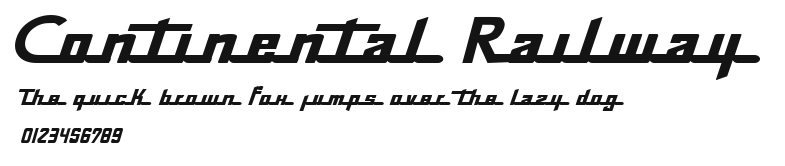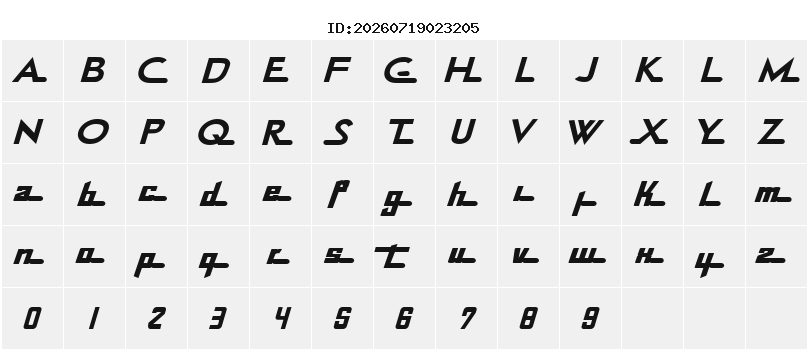
• Font Name: Continental Railway
• Full Font Name: Continental Railway
About Continental Railway.ttf
Continental Railway.ttf is a modern, elegant sans-serif font designed for ultimate readability and visual harmony. Perfect for branding, headlines, web design, and print materials.